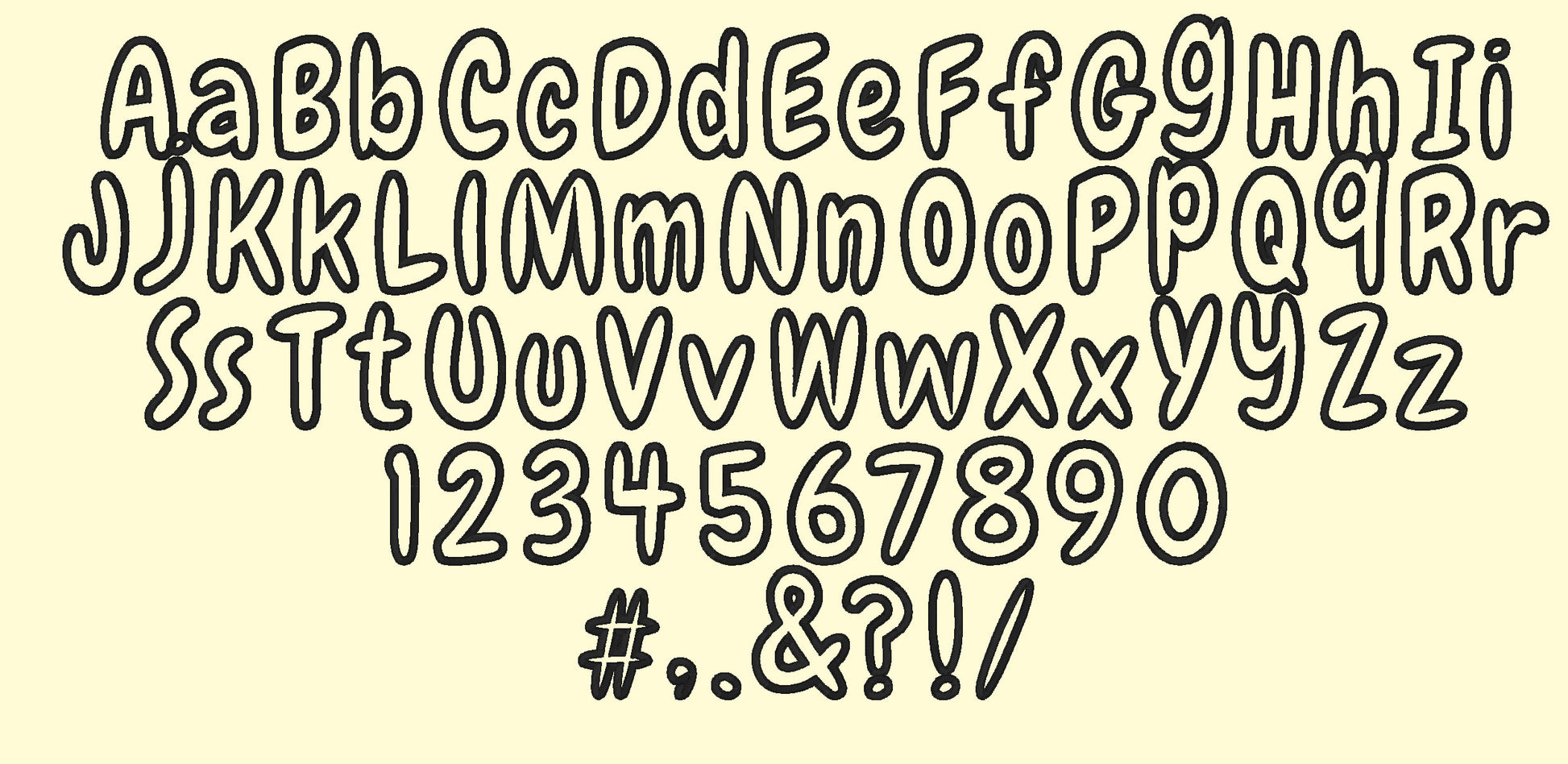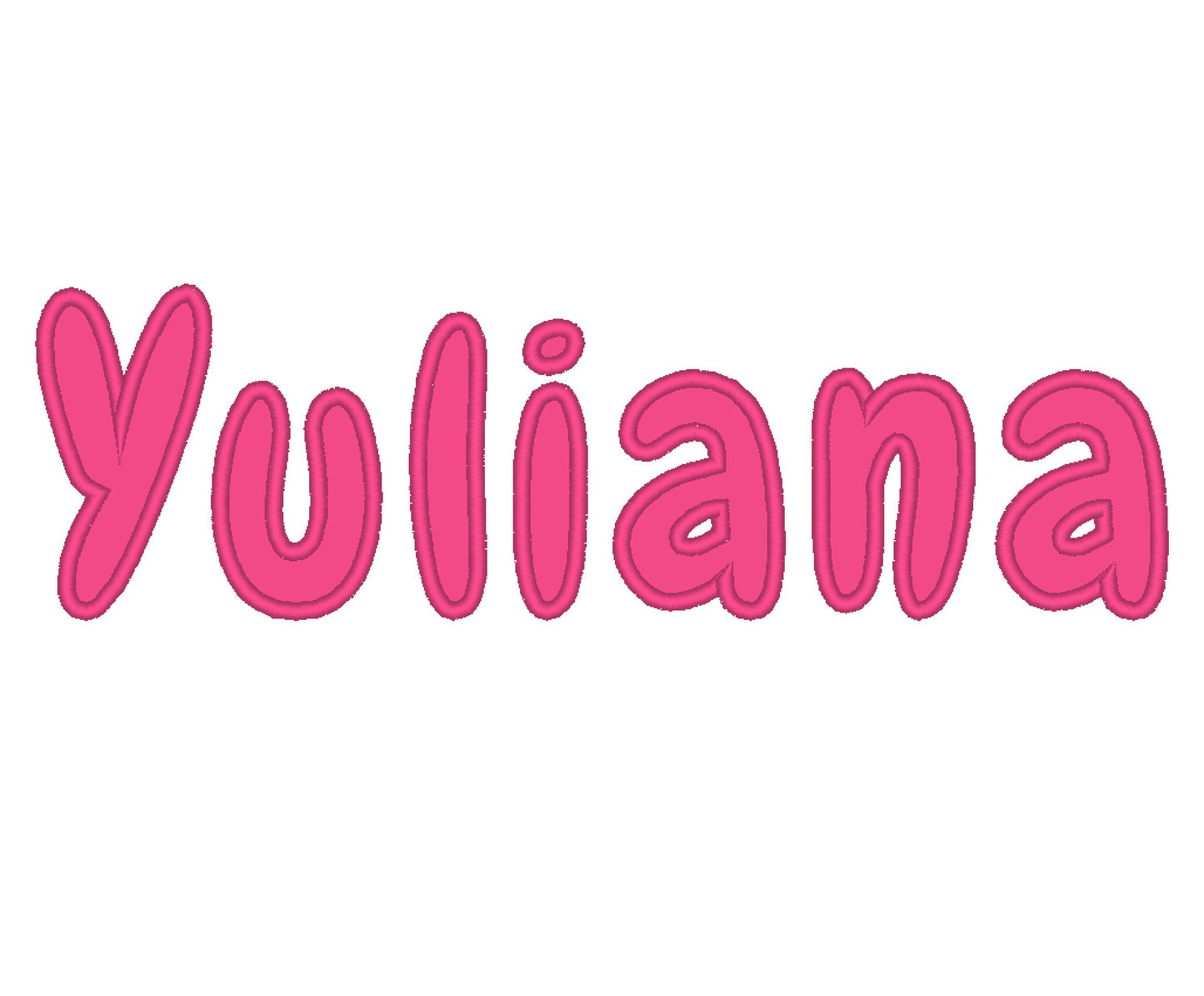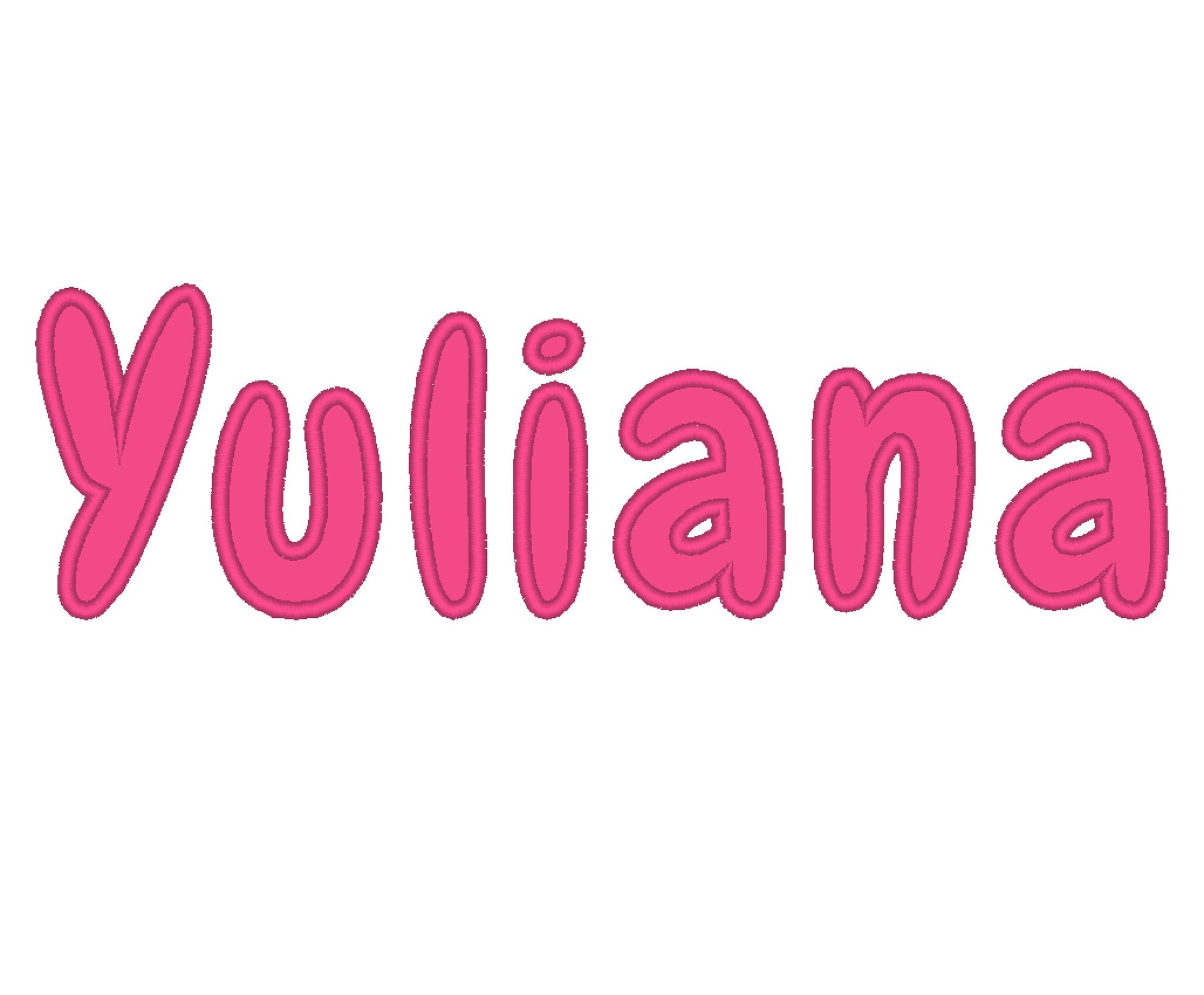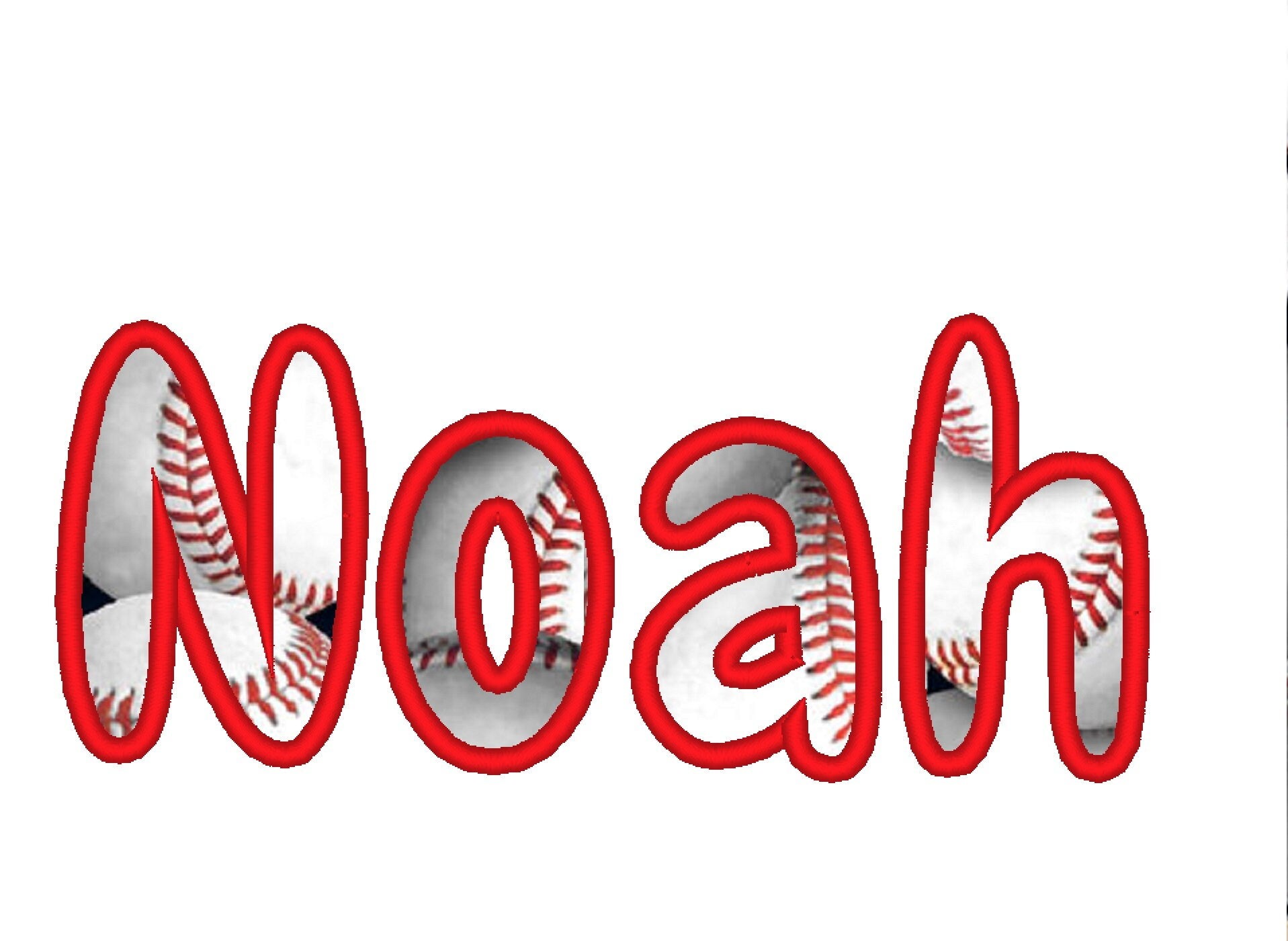
Noah Monogram Font Applique
Or click to open the linkA classic monogram applique font. Lovely for monograms and names on pillows, towels, tote bags and baby gifts.
Uppercase and lowercase letters, numbers 0 to 9 and punctuation, in seven sizes: 1.8, 2.2, 2.7, 3.3, 3.7, 4.1 and 5.2 inches. Applique letters with a neat satin edge.
- Monogram applique font
- Uppercase, lowercase, numbers 0 to 9, punctuation
- 7 sizes, 1.8 to 5.2 in